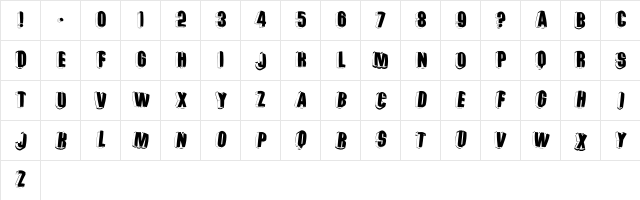
ThreeDimRightwardsRound Regular
Design Context for ThreeDimRightwardsRound Typeface
ThreeDimRightwardsRound softens its letterforms with rounded terminals, giving it an approachable, friendly quality that works well in consumer-facing and digital contexts.
Well-suited to UI design, mobile interfaces, and any brand that wants approachability without sacrificing clarity.
Font Pairing: Pairs well with a rounded or humanist sans for body copy, maintaining the friendly tone without relying on ThreeDimRightwardsRound to carry extended reading.
Pro Tip: Use ThreeDimRightwardsRound for UI elements, app interfaces, and anywhere a friendly, approachable tone needs to be maintained without sacrificing clarity.